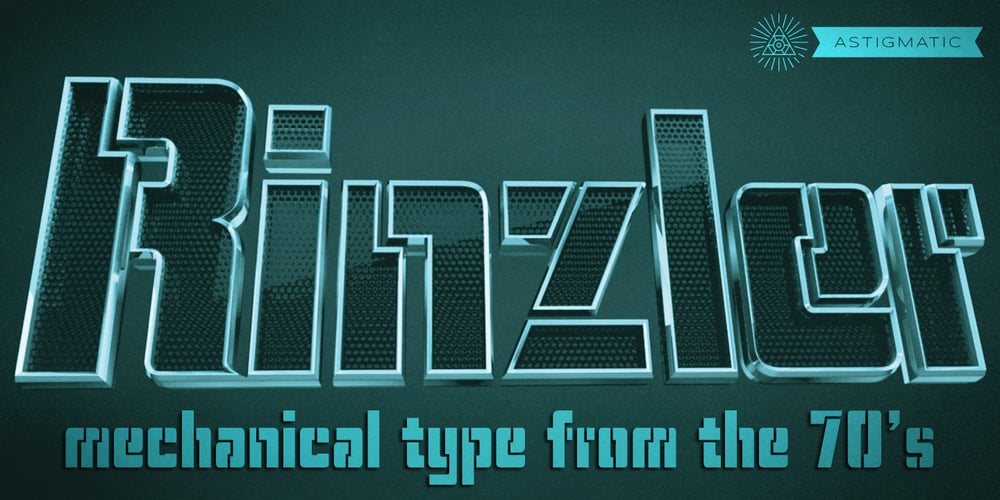
Rinzler AOE
Rinzler AOE font
Rinzler AOE Font Family was designed by Brian J. Bonislawsky and published by Astigmatic. Rinzler AOE contains 1 styles and family package options. Rinzler AOE is a revival of a LetterGraphics film type called Caren. A modular, mechanical, sans-serif stencil all rolled up into one retro typeface. It’s not an all-purpose typeface, it’s not an everyday typeface, but it is a cool typeface for the right design projects. Rinzler AOE carries itself with a bold weighted style, and stencil cutouts that don’t follow standard stencil formatting. It might be considered more of a techno stencil (if there is such a thing). It reminded me in a vague way of TRON, hence the main poster graphic styling, although it looks NOTHING like the Tron titling typeface. Nevertheless, it’s a fun typeface that needed to be preserved and used again.WHAT’S INCLUDED:Extensive language support. Rinzler has accented and special characters that support the following languages: Afrikaans, Albanian, Basque, Bosnian, Breton, Catalan Cornish, Corsican, Croatian, Czech, Danish, Dutch, Embu, English, Esperanto, Estonian, Faroese, Filipino, Finnish, French, Galician, German, Hungarian, Icelandic, Irish, Indonesian, Italian, Kurdish, Leonese, Luxenbourgish, Malay, Maltese, Manx, Maori, Meru, Morisyen, North Ndebele, Norwegian Bokmål, Norwegian Nynorsk, Nyankole, Occitan, Oromo, Polish, Portuguese, Rhaeto-Romanic, Romanian, Scottish Gaelic, Scots, Serbian (Latin), Slovak, Slovenian, Spanish, Swahili, Swedish, Tagalog, Turkish, Walloon, & Welsh.One of my guilty pleasures is in taking the time to recreate historical typefaces as digital fonts, but a lot of incredible historical typestyles created as wood or metal or film type usually have bare bones character sets and have been lost or only exist as limited specimen proofs in old books. These typefaces may have more niché uses than modern typefaces, but I believe it is important nonetheless to preserve these typefaces for future generations. These typefaces, if nothing else, can often inspire new creations.